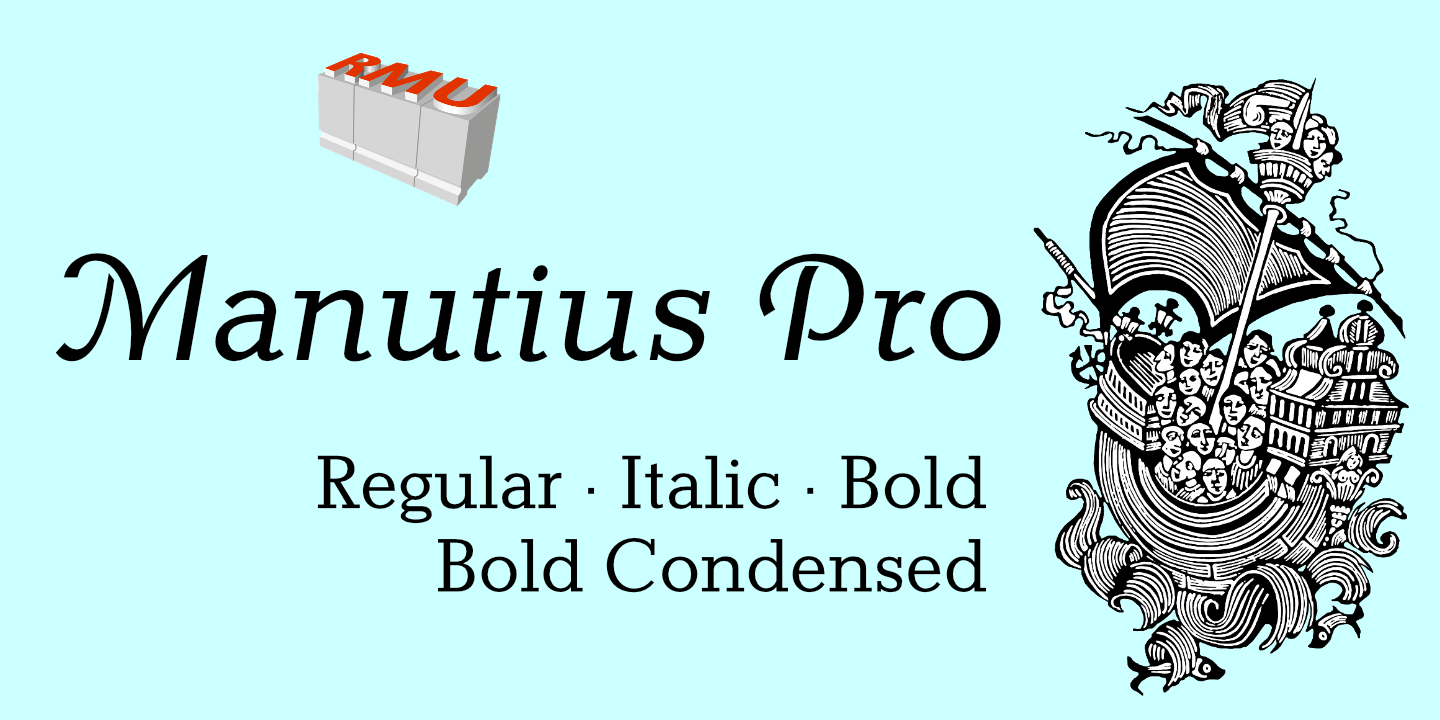
The Manutius Pro Font excels in various design applications including professional publishing house branding, classical typography communications, academic institution materials, scholarly journal layouts, professional book design projects, classical literature publications, academic research documentation, professional typographic services, scholarly society identities, and distinguished professional projects that demand typographic excellence and classical sophistication.
What makes the Manutius Pro Font exciting is its scholarly embodiment of classical typography and professional publishing heritage through letterforms that capture the essence of traditional typeface design and the refined elegance of professional typographic traditions. This typeface demonstrates exceptional professionalism through carefully crafted characters that suggest the meticulous artistry of classical type design, the scholarly precision of academic publishing, and the timeless quality that makes professional typography so intellectually sophisticated and visually distinguished. The font's professional personality makes it perfect for publishing houses and academic institutions seeking to communicate typographic authenticity, scholarly excellence, and the kind of classical refinement that creates memorable professional experiences through typography that literally embodies typographic mastery.
The Manutius Pro Font family typically includes comprehensive weight variations that enhance the professional aesthetic, featuring classical proportions and extended character sets optimized for publishing communications and academic applications. These family options often include scholarly alternates, professional symbols, and classical decorative elements that provide designers with comprehensive tools for creating authentically professional typography that celebrates typographic heritage while maintaining contemporary design appeal and academic credibility.
Publishing professionals and academic organizations consistently select Manutius Pro Font Free Download for projects requiring typography that communicates professional authenticity and classical sophistication. This typeface delivers exceptional performance in publishing marketing, academic branding, and scholarly communications where establishing credibility and creating refined intellectual atmosphere is essential for professional engagement. The font's classical character makes it particularly effective for book design and academic applications. Download Manutius Pro Font Free Download today to access this professionally distinguished typeface that transforms publishing communications with its classical elegance and typographic sophistication, creating compelling scholarly experiences that honor the magnificent tradition of professional typography while celebrating the refined excellence that defines authentic classical typeface design and academic publishing achievement.